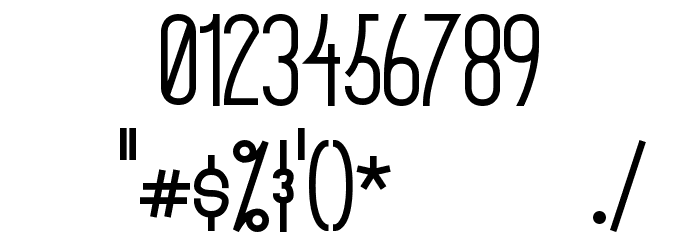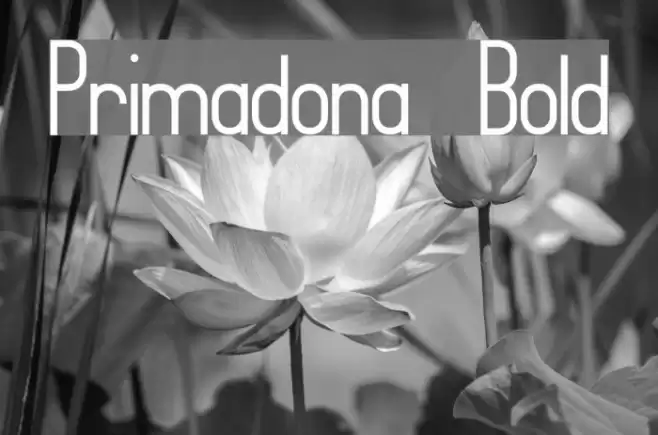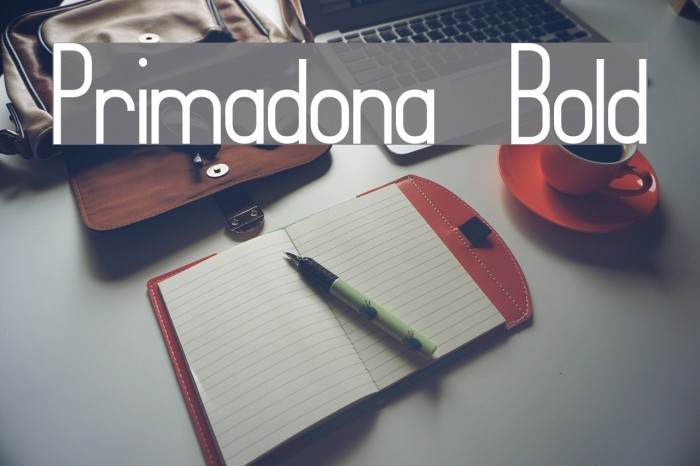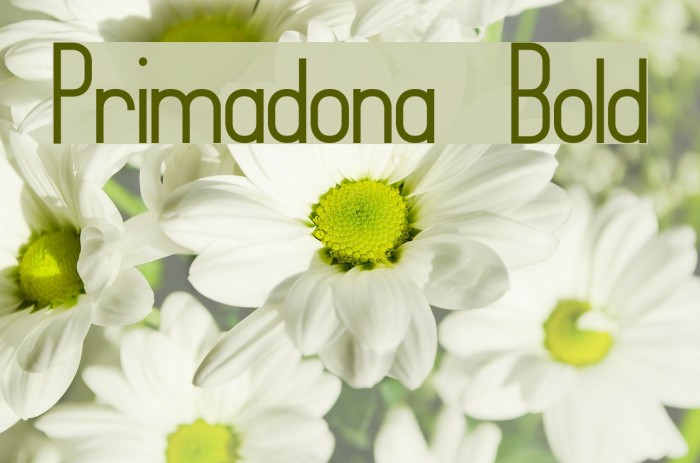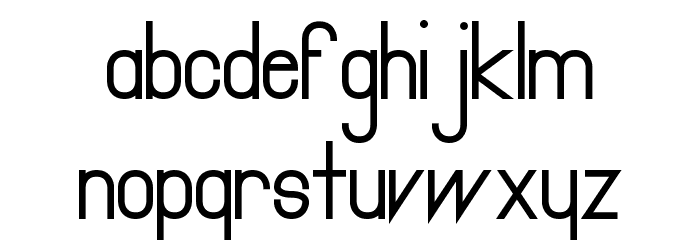
Primadona Bold Font
Primadona Bold Description
This font features a sleek and modern design with elongated, narrow characters that give it a distinctive and elegant appearance. The uppercase letters are tall and slightly condensed, while the lowercase letters maintain a consistent height, creating a harmonious balance. The numerals are clear and easy to read, with a uniform stroke width that adds to the font's clean aesthetic. Special characters are well-defined, enhancing the font's versatility. Overall, this font exudes a contemporary and stylish vibe, making it suitable for various design applications.
| Use Case | Headlines, Logos, Branding |
| Proposed Projects | Ideal for fashion magazines, branding, advertising, and modern web design. |